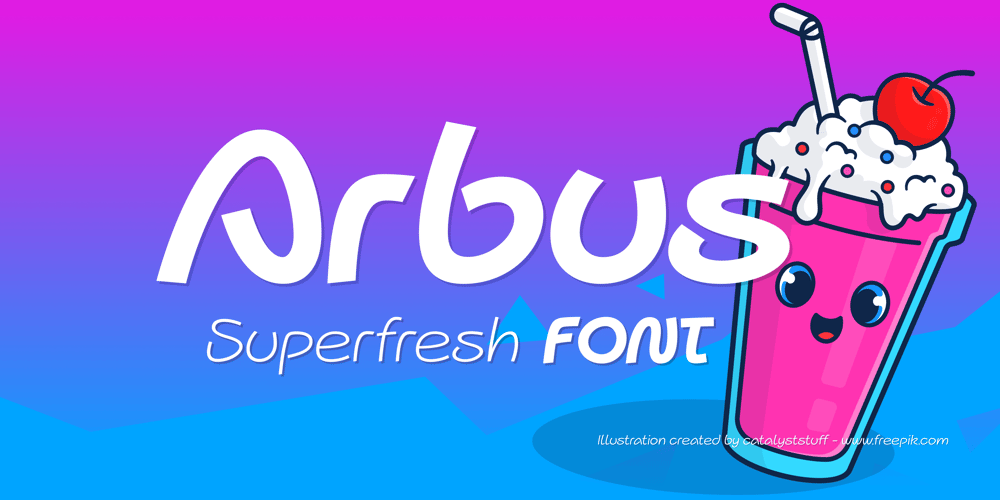
Arbus Font Family was designed by Alexey Popov and published by Popskraft. Arbus contains 9 styles and family package options. When we think of a child’s font, random scribbles often come to mind, but I thought, why not make a child’s font fun, spontaneous, and at the same time simple and readable. This is how the Arbus font was born. This font is perfect for anyone looking for a light, free-style font that will last a long time.In addition, the font has a number of undeniable advantages: The Arbus font is perfectly balanced, which allows you to use it both in headings and for large amounts of text. Thus, you can completely design your products with one font family. The Arbus font family has nine font weights. The font supports all European languages and of course the Latin alphabet. Works on PC & Mac This beautiful Arbus font can be installed on any operating system, it can also be used in professional programs like Figma or Addobe Crative Cloud, as well as in other simpler software like Canva.